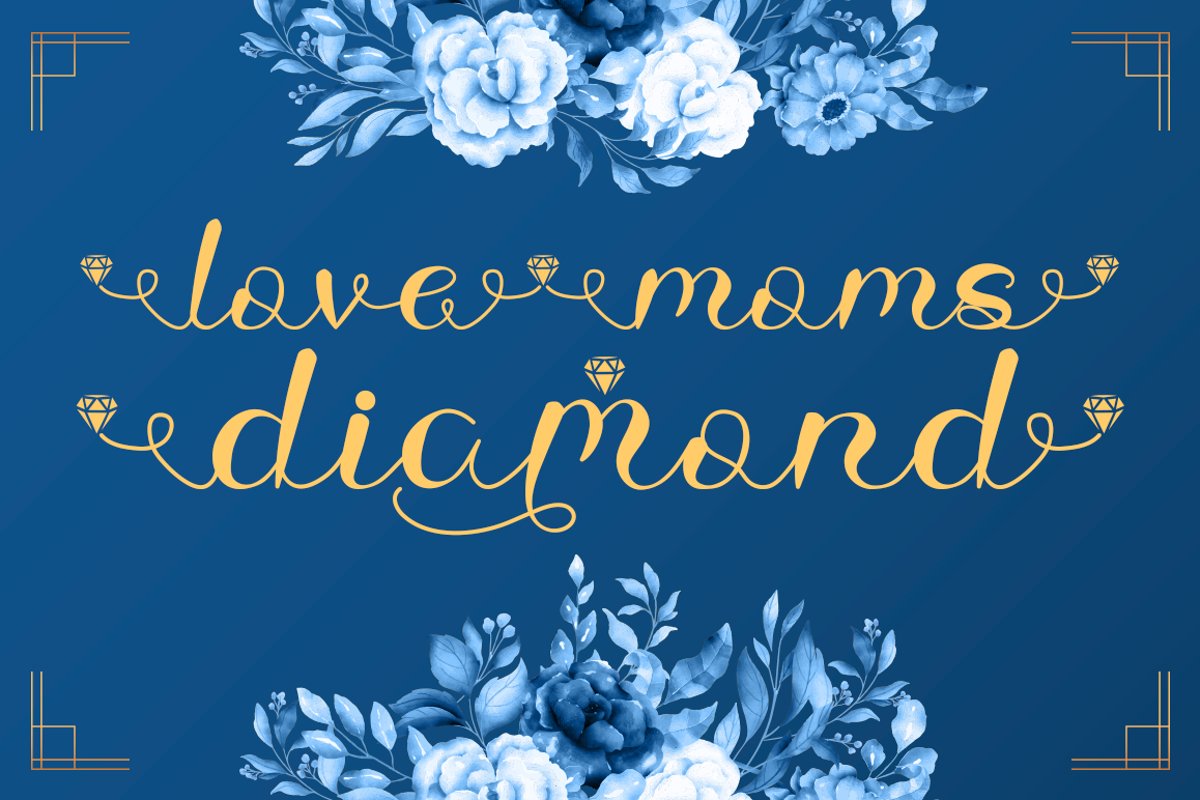
Love Moms Diamond - Modern Calligraphy for Mother's Day
Hello, Love Moms Diamond is an incredibly beautiful script font. It has an elegant and modern look w…